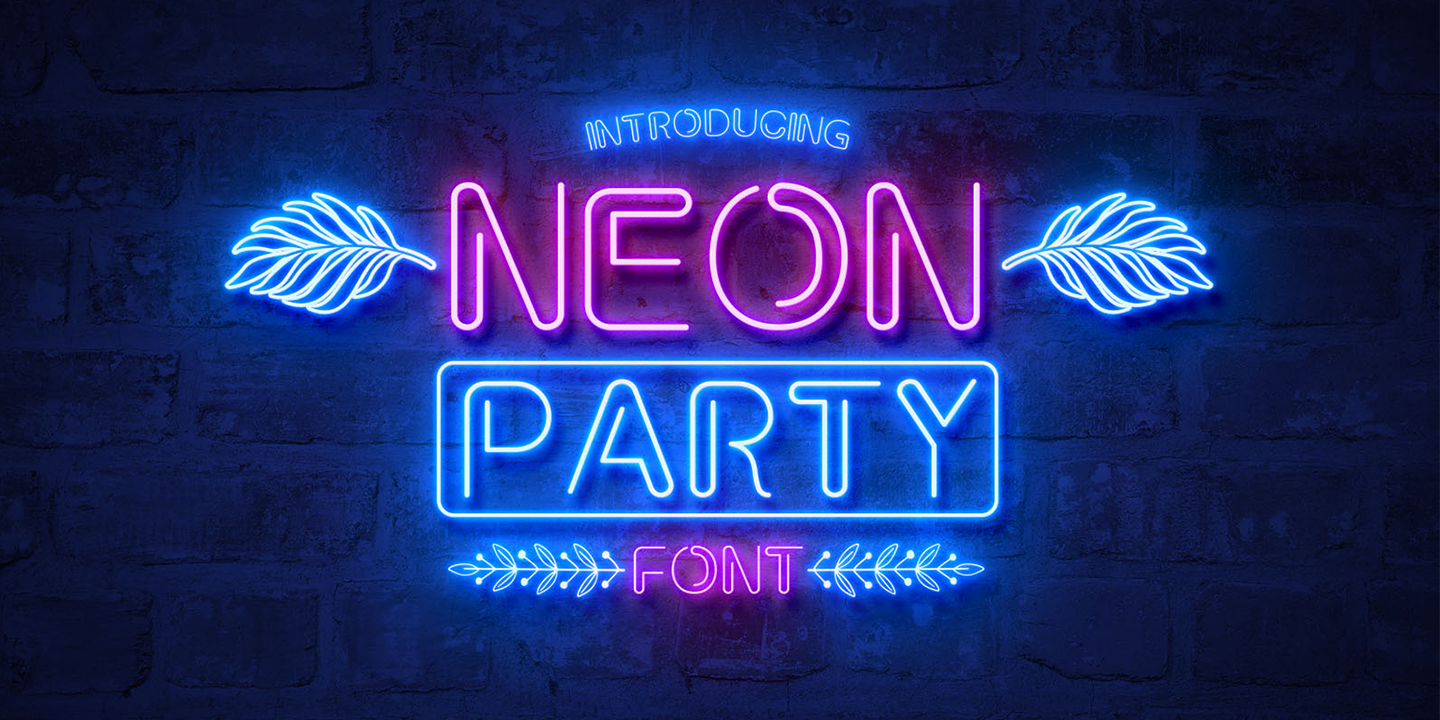
The Neon Party Font is an excellent choice for designs that aim for a vibrant, energetic, and distinctly retro-futuristic or nightlife-inspired aesthetic. Imagine it glowing on a nightclub flyer, adding an electric buzz to a concert poster, or bringing a nostalgic 80s vibe to product packaging. It's also perfectly suited for arcade game titles, futuristic event promotions, dynamic social media graphics, and any project where you want to convey a sense of excitement, entertainment, and a dazzling visual appeal. Its often sleek, illuminated-style forms and bold presence make it ideal for conveying fun and a memorable, lively statement.
What makes the Neon Party Font so exciting is its ability to instantly capture the essence of a bygone era fused with a timeless sense of celebration. It frequently features letterforms that mimic the glow and segmented nature of neon signs, giving it a unique visual texture and a strong graphic appeal. This font has a vibrant and exhilarating personality that can instantly elevate your design, making it feel both retro and cutting-edge. It’s designed to grab attention and evoke a sense of playful glamour, ensuring your message is not just seen, but experienced with a burst of electrifying energy.
The Neon Party Font family typically focuses on a few key weights to best convey its distinctive illuminated character, possibly including stylistic alternates or unique ligatures that enhance its glowing effect. While it might not always have an extensive range of weights, its strength lies in its unique visual style and inherent expressiveness. These variations empower designers to create a truly dazzling and memorable display, ensuring the Neon Party Font Free Download can adapt to a wide array of projects while maintaining its signature, bright charm.